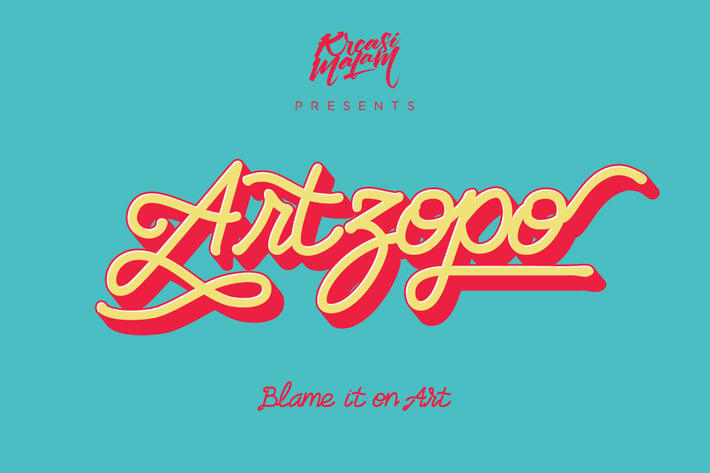
Artzopo Font
Artzopo Font a handmade font with open type feature would be awesome for your design projects. It could be fitted for logos, quotes, t-shirts, posters or anything.
Available in uppercase, lowercase, numerals and punctuations.